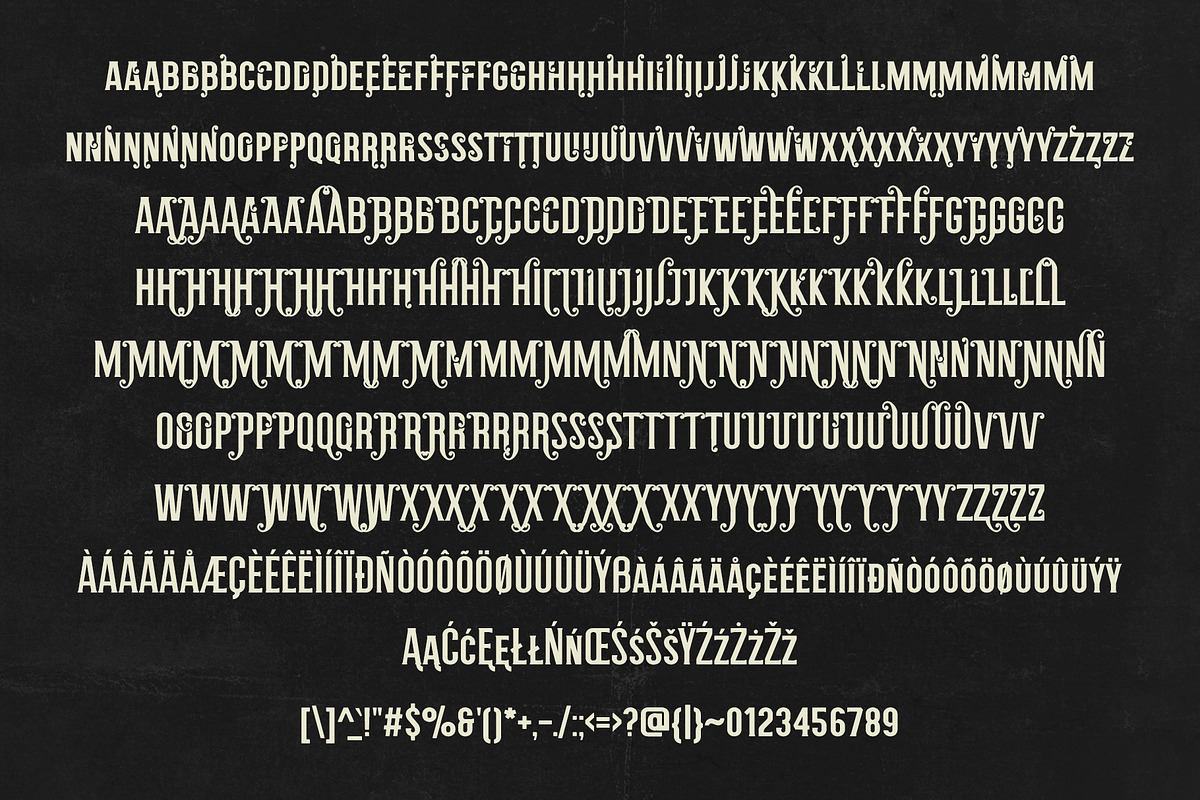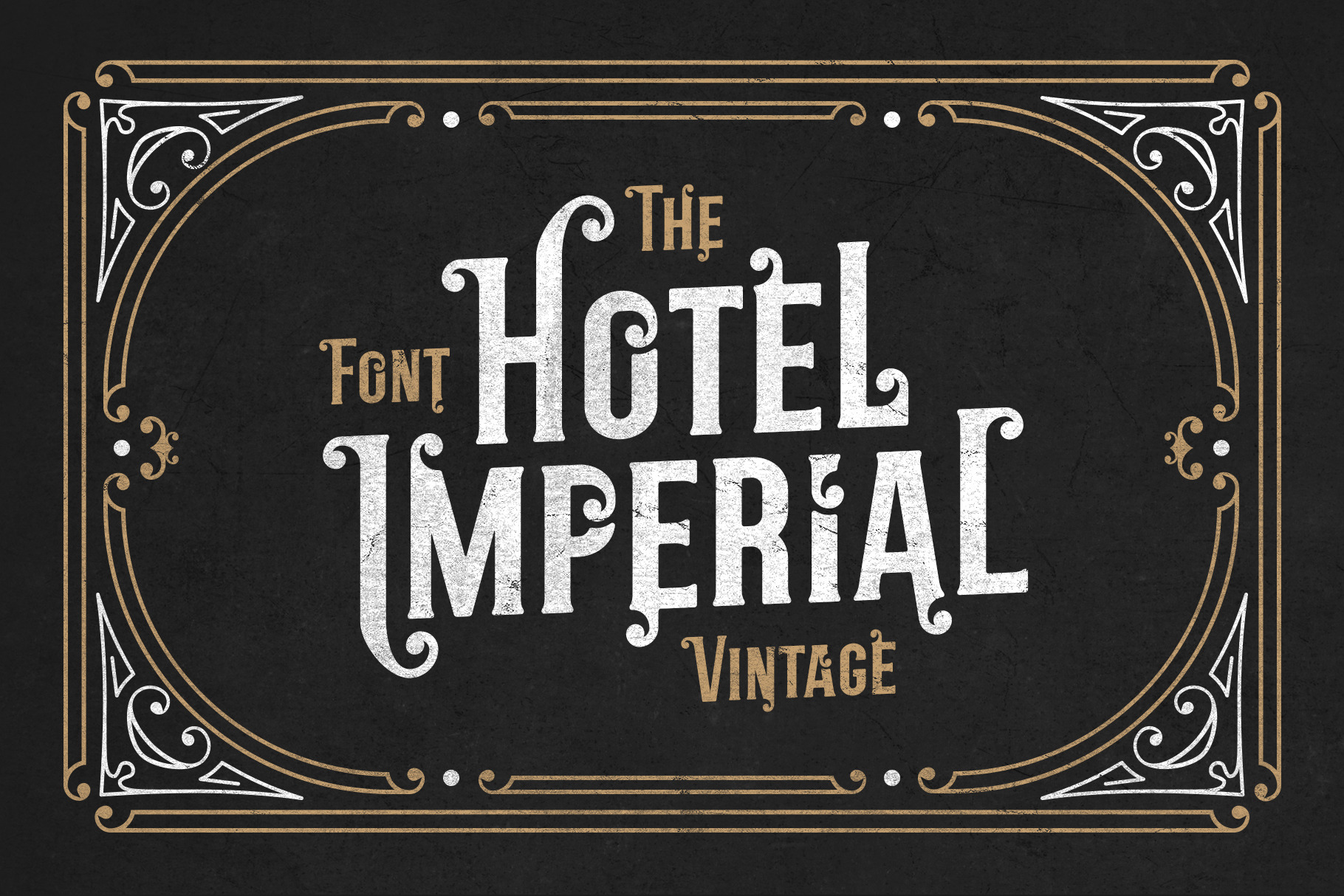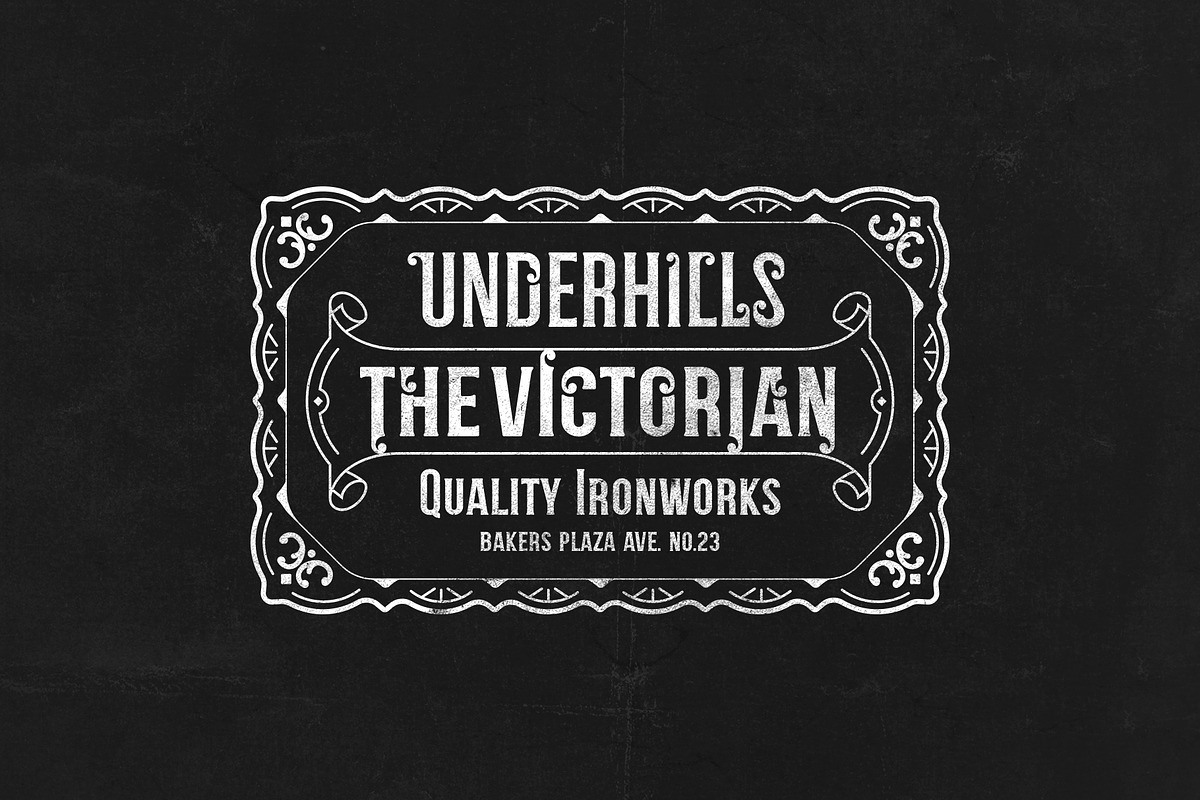
Hotel Imperial Font
Hotel Imperial is a stylish and very versatile display decorative serif font. You can create simple typography or amazing titles and text for your projects using the alternative letters. And there are many letters to choose from!
- Numerals and punctuation
- Alternates and ligatures